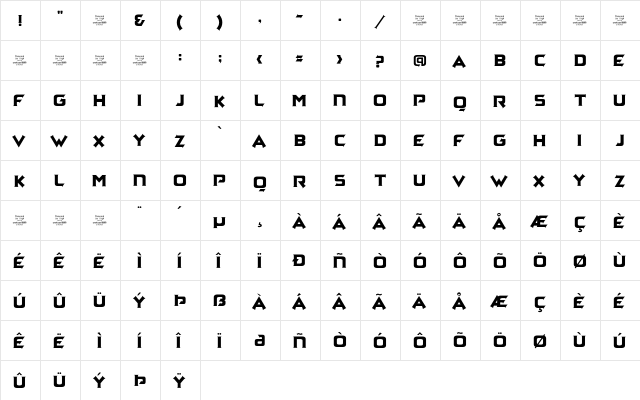
Archena Personal Use Regular
| Foundry | Tama Putra |
| Designer | Tama Putra |
Design Context for Archena Personal Use Typeface
Archena Personal Use offers clean, dependable letterforms without strong stylistic allegiance, making it a practical choice for designers who need flexibility.